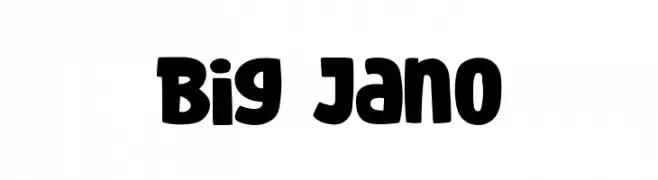
A playful and whimsical font with quirky, irregular letterforms and unique flair.
A whimsical, cursive font with a romantic, handwritten style.
A bold, textured font with a playful, artistic design.
A playful, textured font with a hand-drawn, artistic style.
A playful, hand-drawn font with a textured, chalk-like appearance.
A playful, casual handwritten font with a friendly and approachable style.
A playful, dotted font with a whimsical and informal style.
A whimsical handwritten font with decorative swirls and curls.
A playful, decorative font with characters enclosed in circular borders.
A playful, decorative font with characters enclosed in circles, perfect for creative projects.
A whimsical, hand-drawn font with playful, uneven characters.
A playful, hand-drawn font with a whimsical and friendly style.
A playful serif font with tall, narrow characters and whimsical details.
A playful serif font with a whimsical, decorative style.
A playful serif font with an italic style and medium contrast.
A playful, hand-drawn font with a whimsical and informal style.
A playful, hand-drawn font with decorative elements and a whimsical style.
A playful, star-dotted decorative font ideal for creative projects.
A whimsical, dotted font with sparkles, perfect for playful and creative designs.
A playful, star-dotted font perfect for adding sparkle to creative projects.
A playful, starry decorative font with a whimsical, sparkling design.
A whimsical collection of spring and Easter-themed doodles and decorative text.
An elegant, decorative font with intricate swirls and flourishes.
An elegant and flowing script font with ornate uppercase letters and fluid lowercase characters.